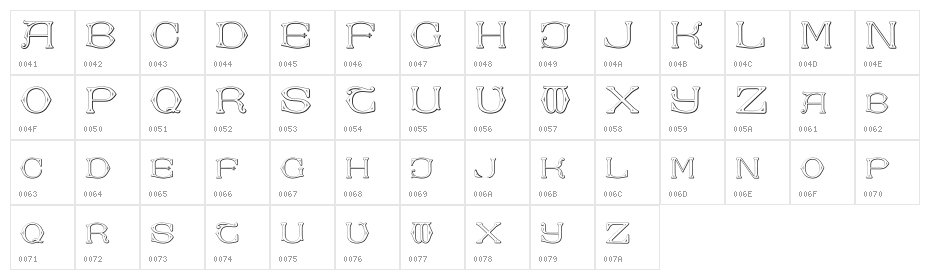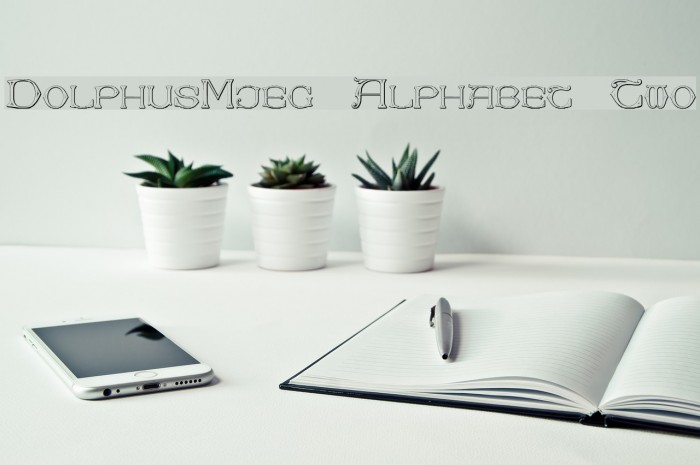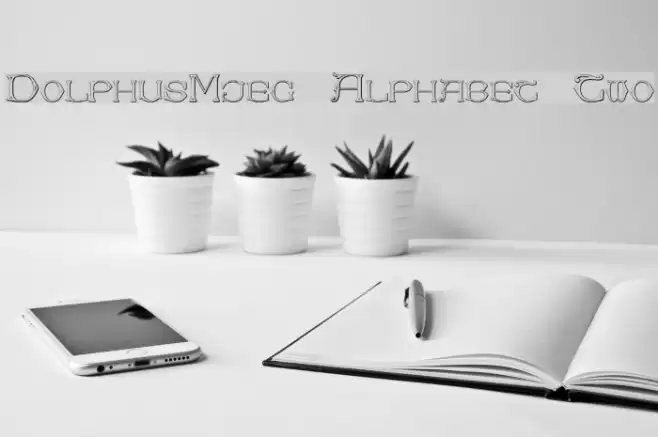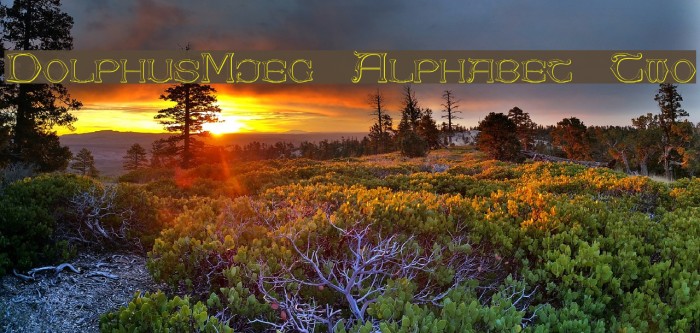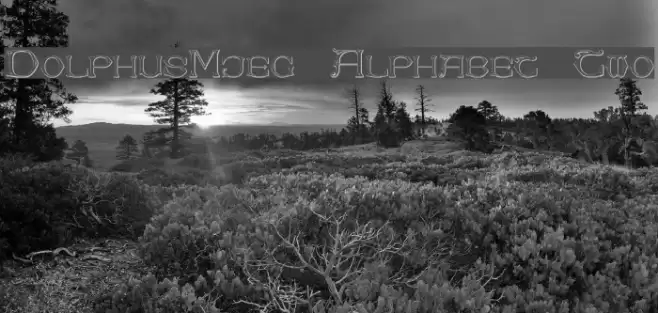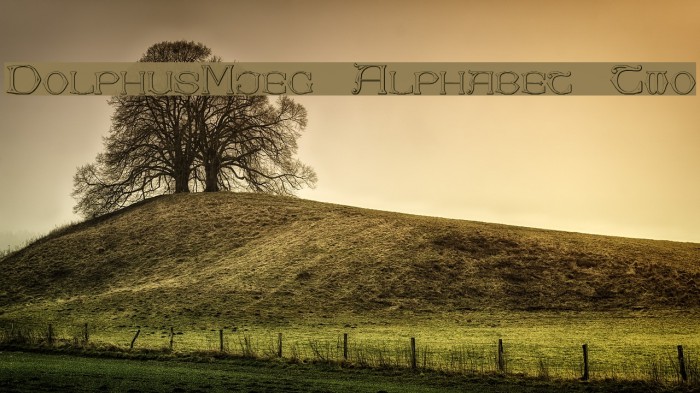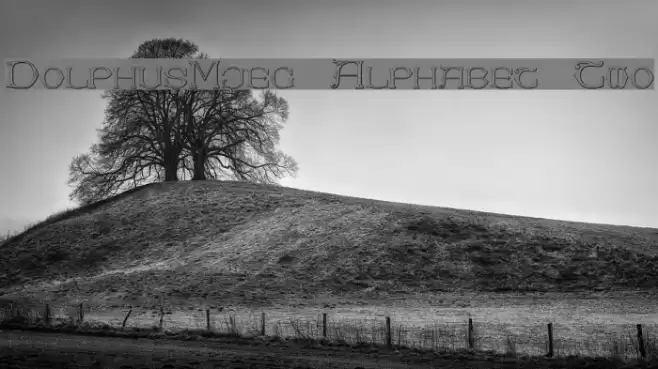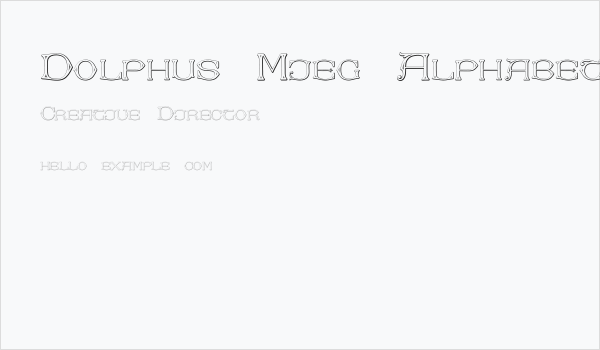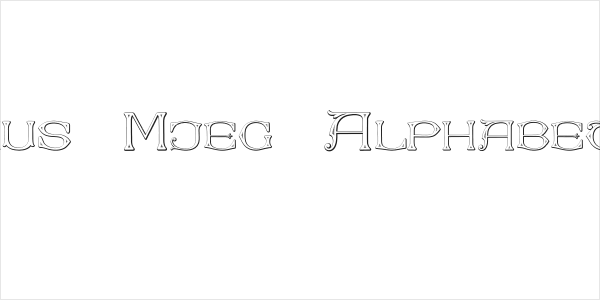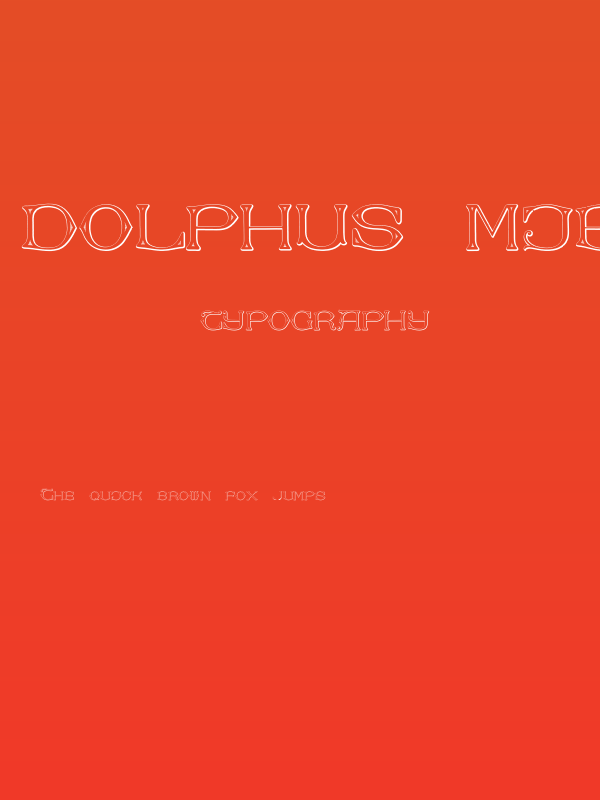
Dolphus-Mieg Alphabet Two Font
Dolphus-Mieg Alphabet Two Description
This font features a unique and intricate design with a decorative style that incorporates ornate elements into each character. The letters are characterized by their bold, structured forms and elaborate detailing, giving them a distinct and artistic appearance. The strokes are consistent in width, providing a balanced and harmonious look. The font's design is reminiscent of historical or vintage styles, with a touch of modern flair. It is well-suited for projects that require a touch of elegance and sophistication, making it ideal for creative and artistic endeavors.
| Proposed Projects | Ideal for use in branding, logos, invitations, posters, and any project requiring a vintage or artistic touch. |